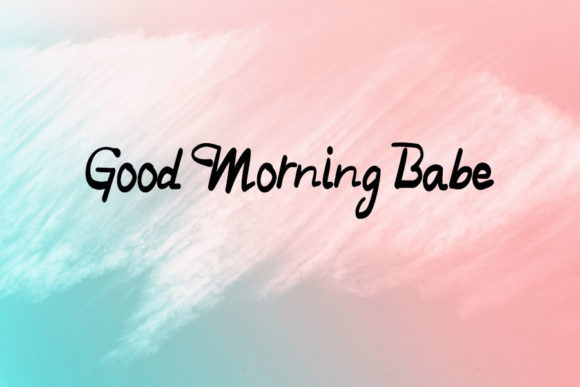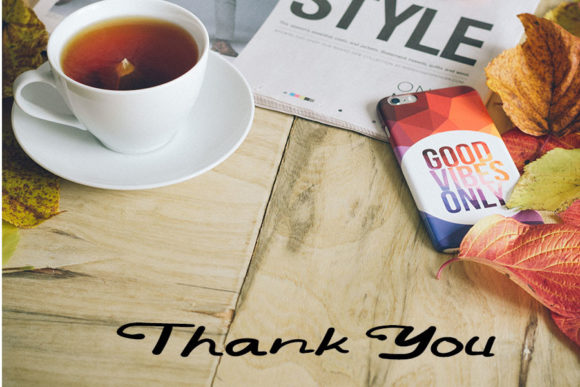
Introduction to Shellby Font
Have you ever stared at a blank page, eager to bring your creative vision to life, only to be held back by the perfect font? That’s where the Shellby Font comes in – a game-changing design resource that’s about to revolutionize the way you approach your next project.
Imagine being able to effortlessly craft a compelling narrative, add a touch of elegance, and make your message stand out with a single, masterfully crafted font. The Shellby Font is more than just a design tool – it’s a key to unlocking your full creative potential.
With its high-quality, transparent background, and versatility, this free download is an invaluable addition to any designer’s toolkit. Whether you’re working on a high-profile campaign or a personal creative project, the Shellby Font is sure to elevate your work to new heights.
Key Features of Shellby Font
- High-quality, elegant design perfect for creative projects and presentations.
- Features a transparent background, making it ideal for overlaying text on images or videos.
- Designed with a high resolution of 300 DPI, ensuring crisp and clear text display on various devices.
- Unique characteristics include a sophisticated and modern aesthetic, making it perfect for creative and innovative projects.
Honest Review: Shellby Font
As a designer, I’m always on the lookout for high-quality design resources that can elevate my creative projects. Recently, I had the chance to work with the Shellby Font, and I’m excited to share my honest review.
- Beautiful, elegant design that’s perfect for luxury branding
- Wide range of styles and weights, making it a versatile design resource
- No transparent background option, which can limit its use in certain creative projects
- Not suitable for use in small font sizes, as the details can get lost
Overall, I was impressed with the Shellby Font’s high quality and versatility. While it has some limitations, I think it’s a great design resource for designers working on creative projects that require a touch of elegance. If you’re looking for a free download that can elevate your design, I’d definitely recommend giving the Shellby Font a try.
Tips for Getting the Most Out of Shellby Font
For the best results, use the Shellby Font on a transparent background to create a seamless design. You can also experiment with different font sizes and styles to add visual interest to your project.
Common Use Cases for Shellby Font
The Shellby Font is ideal for a variety of creative projects, including brochures, posters, and social media graphics. You can also use it for free download and customize it to fit your specific design needs.
Q: Is Shellby Font suitable for use on websites with a transparent background?
While Shellby Font is a high-quality design resource, it’s not recommended for use in high-traffic websites or applications that require a transparent background. This is because the font may not render correctly in certain browsers or environments. However, it’s perfect for use in creative projects that don’t require a transparent background.